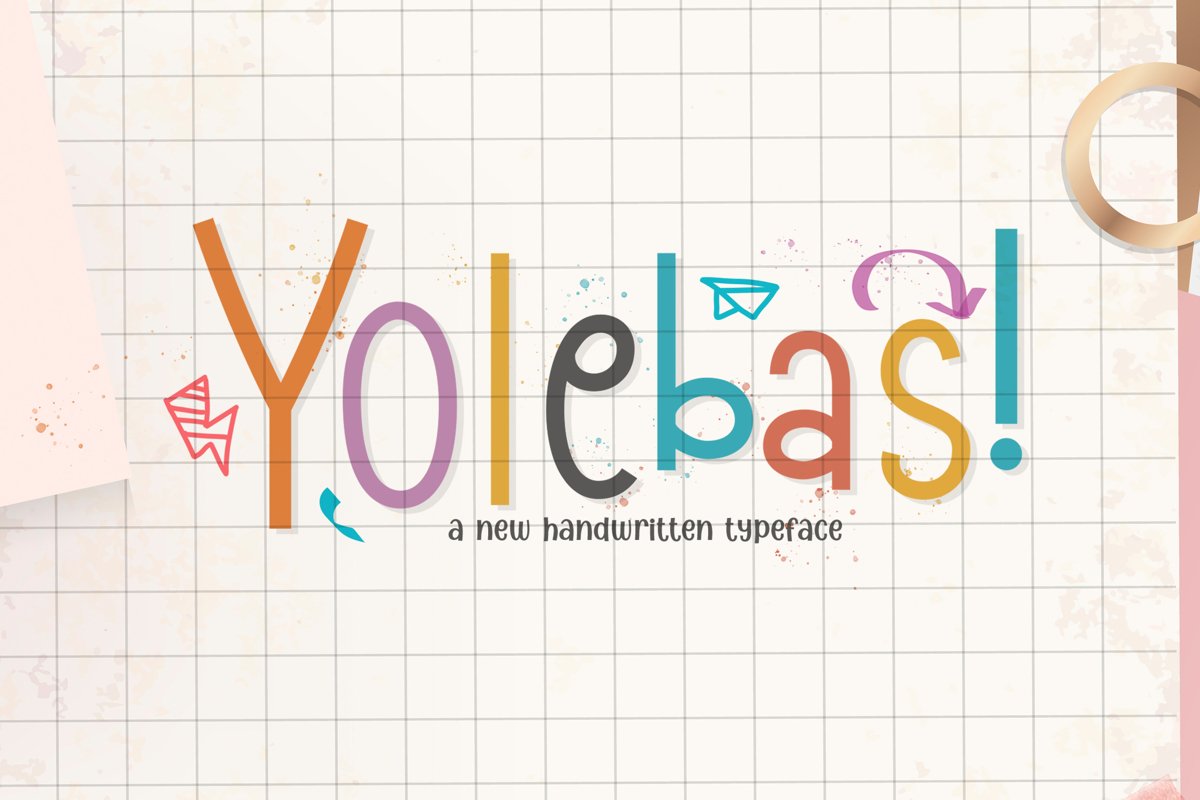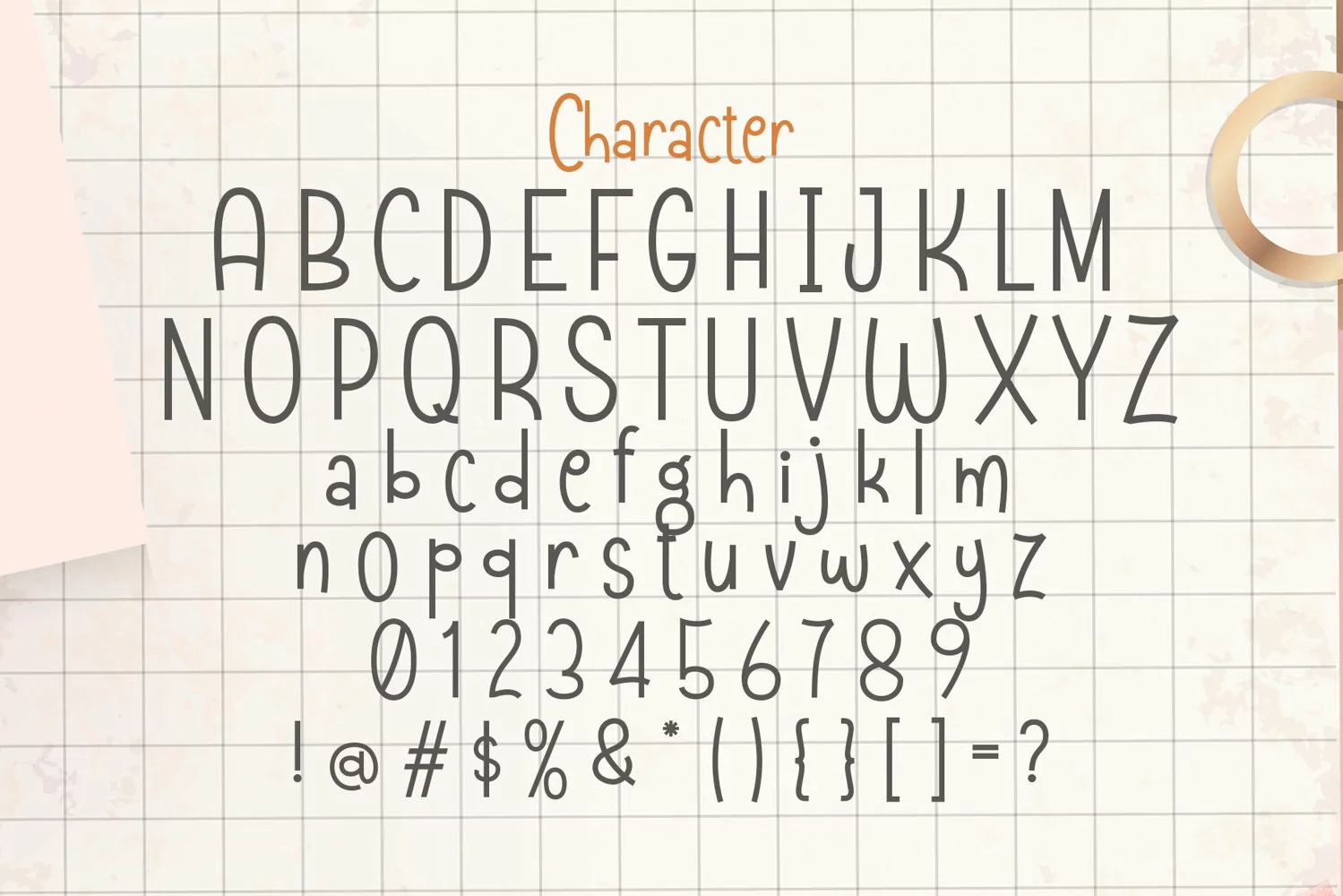
Yolebas is a playful display typeface. Perfect for display, quotes, poster, branding, business card, logo, logotype, print, t-shirt, pin, mug, packaging, merchandise, headline, header and many more.